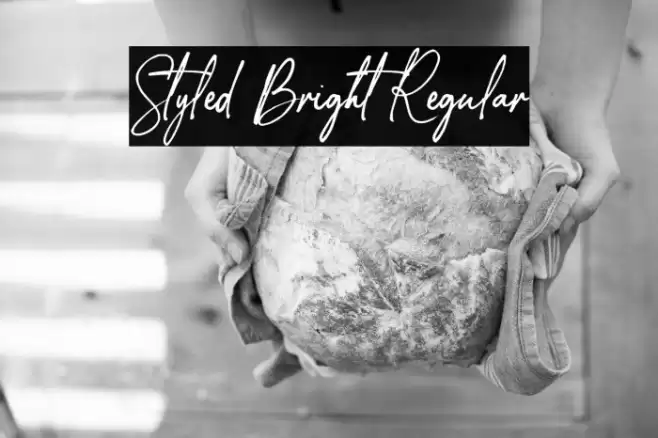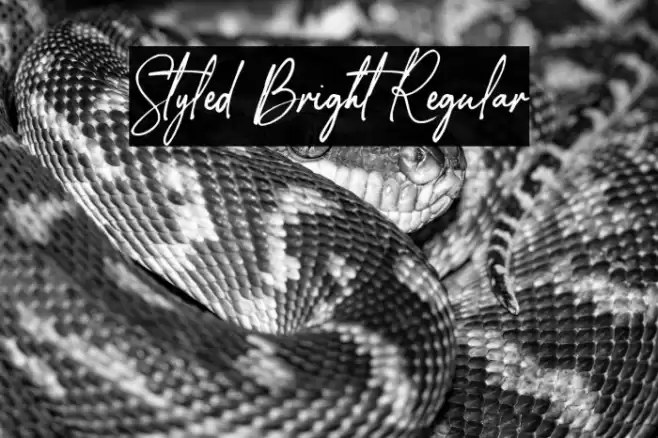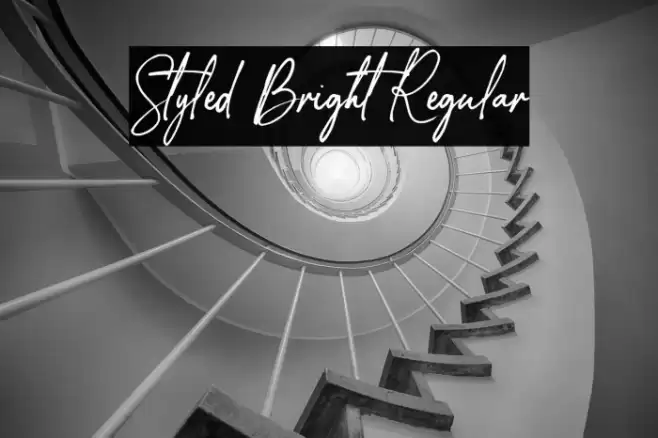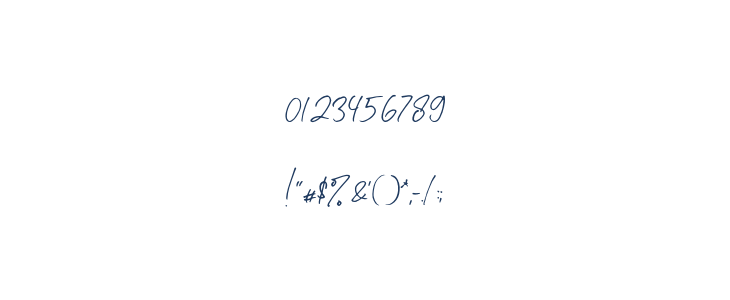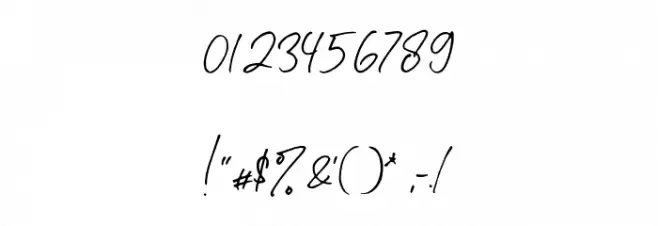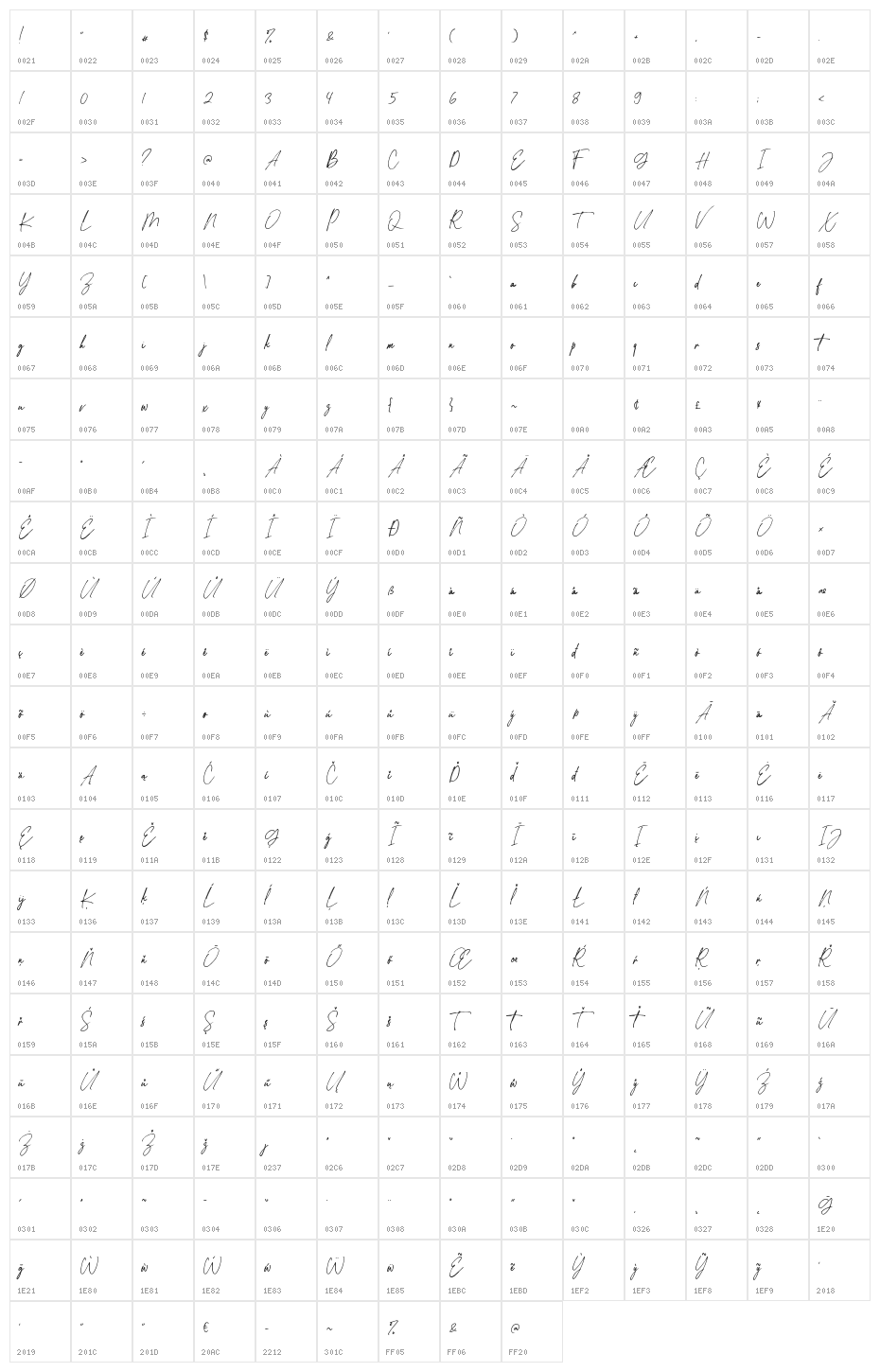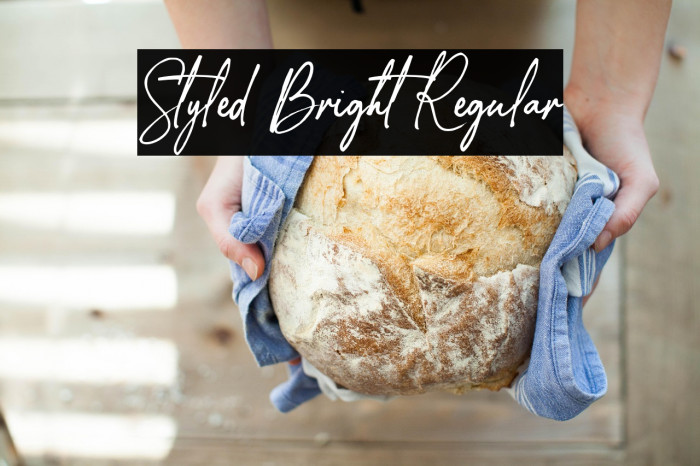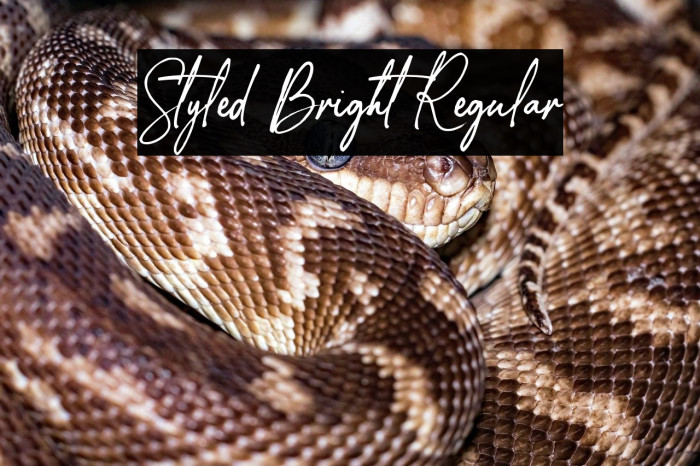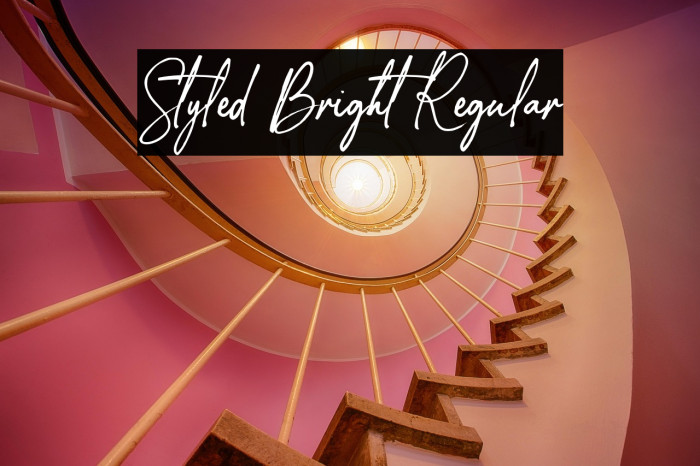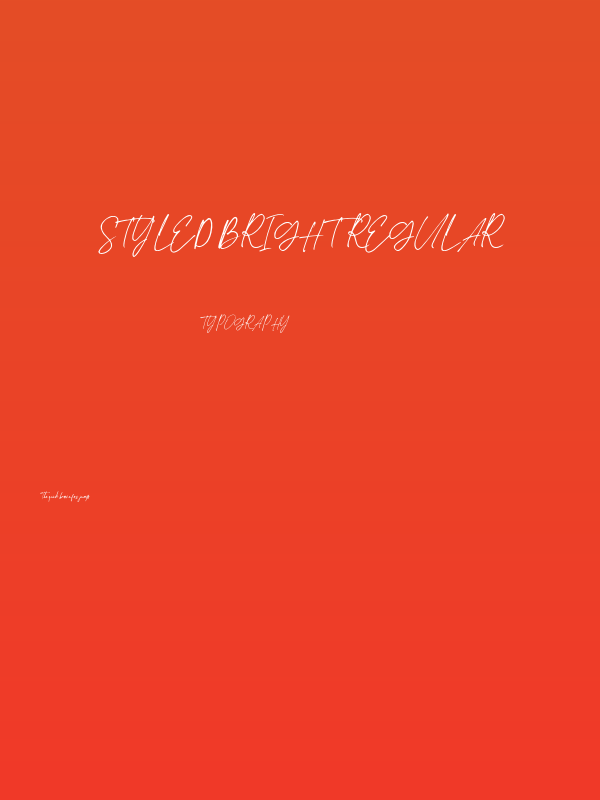
Styled Bright Regular Font
Styled Bright Regular Description
This font exudes a lively and dynamic handwritten style, characterized by its fluid and elegant strokes. The letters are crafted with a natural flow, giving an impression of personal touch and creativity. The uppercase letters are bold and expressive, while the lowercase letters maintain a consistent rhythm, adding to the overall harmony of the design. The numerals and special characters are designed to complement the alphabet, maintaining the same energetic and artistic flair. This font is perfect for projects that require a personal and artistic touch, such as invitations, greeting cards, or creative branding.
A lively, handwritten font with fluid, elegant strokes and a personal touch from Regular fonts.
- Proposed Projects: Ideal for invitations, greeting cards, creative branding, and artistic projects.
- Use Case: Logos, Headlines, Artistic projects